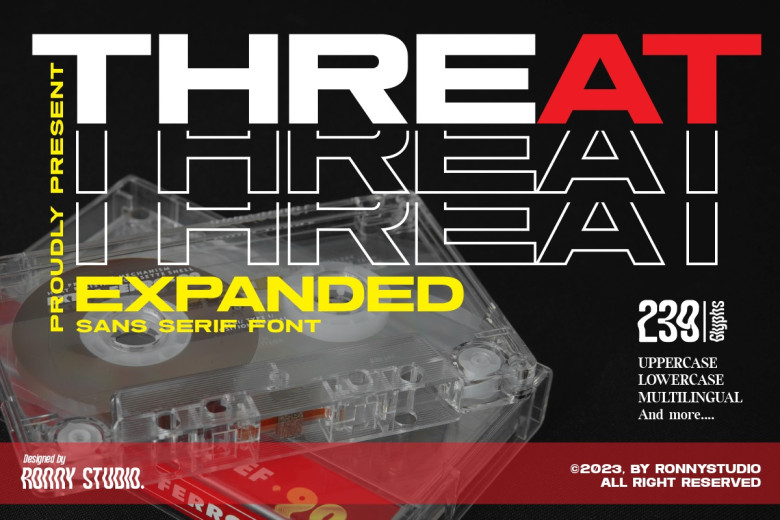
Threat Font
Threat is an all caps font with an extreme bold design and striking contrasts, appearing modern when combined with vibrant colors. It features crisp and sophisticated font design for professional looks; making this font an excellent fit for designs needing something truly unique.
Use it in your designs, and be amazed at the results. Its stylish appearance makes it ideal for stylish designs, branding, promotional books, magazines, book covers or text overlay on any background picture.
Threat Expanded Sans Serif Font